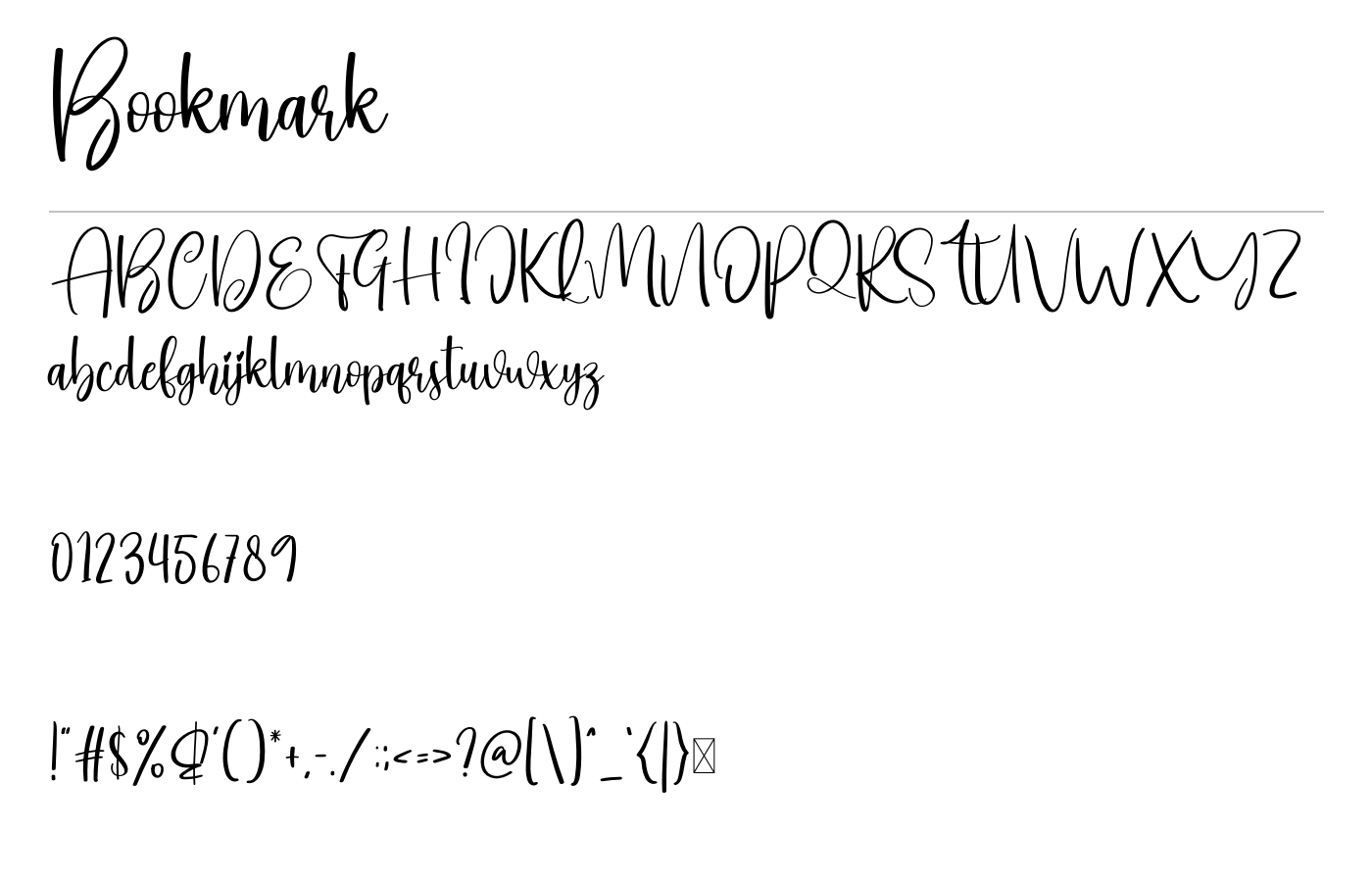
Bookmark Font is a playful and elegant handwritten script that features tall, narrow letterforms with a light, airy feel. Its slender strokes and whimsical loops give it a charming, personal touch, making it perfect for creative branding, invitations, and stylish editorial designs where a friendly yet sophisticated look is desired. This font brings a lively and approachable personality that works well for projects aiming to convey warmth and individuality.
Bookmark Font